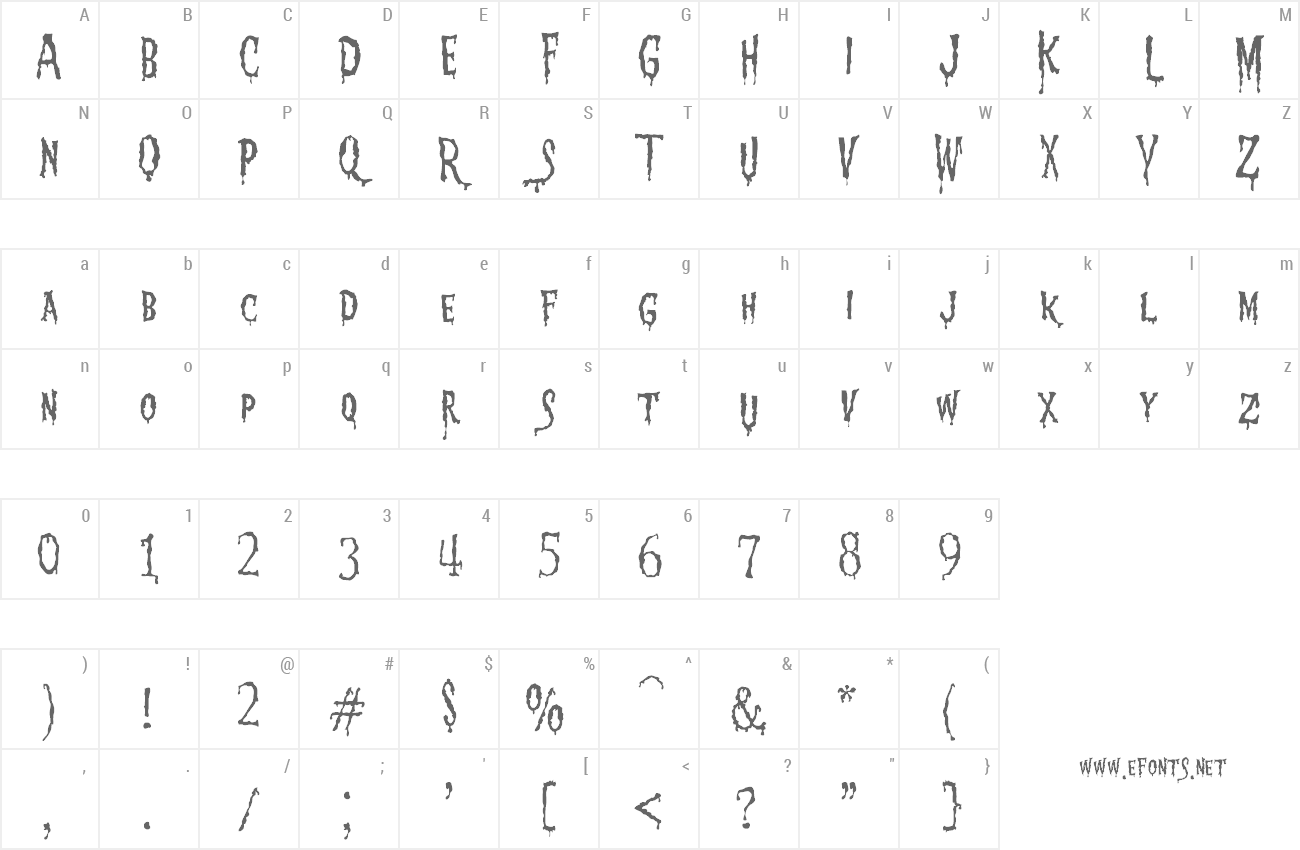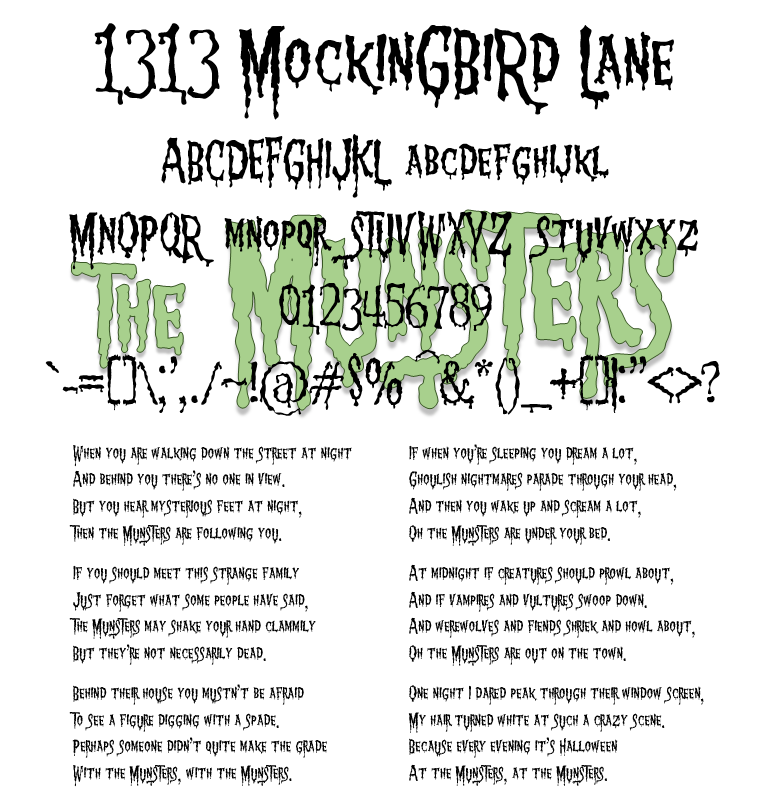
Preview and download 1313 Mockingbird Lane Font. Created by Jeff Bensch in Fancy Horror styles with Free for personal use license.
Free for personal use. Please - no commercial use allowed, this font is not for sale. Note, I am not affiliated with The Munsters in any way - based loosely on the logo from the opening credits from the pilot episode (in color!). |